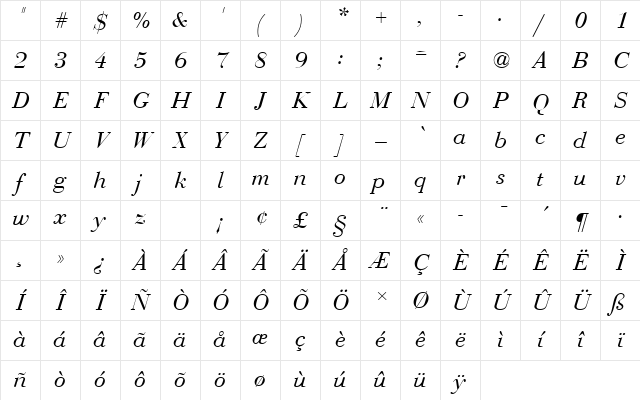
BauerBodDRegItaRo1 Regular Free Font
BauerBodDRegItaRo1 Regular
Design Context for BauerBodDRegItaRo1
BauerBodDRegItaRo1 is a composed and adaptable typeface that performs quietly and consistently across a wide range of design contexts.